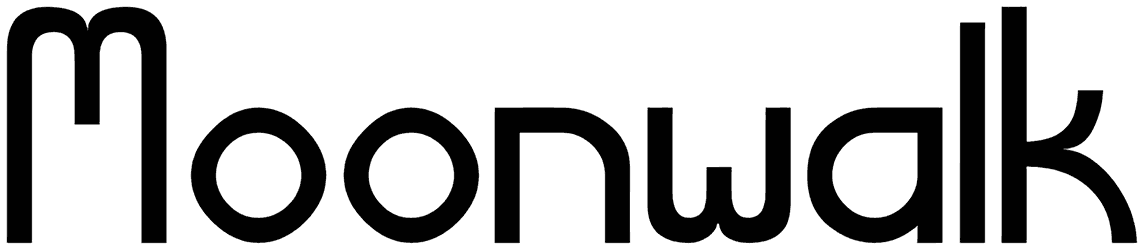
Moonwalk Font
Moonwalk is a digital font with a simple, geometric display. It supports uppercase and lowercase letters, numbers, and some punctuation. It also has good readability. This feature makes it the best option for children’s…
Moonwalk is a digital font with a simple, geometric display. It supports uppercase and lowercase letters, numbers, and some punctuation. It also has good readability. This feature makes it the best option for children’s books. You can use this minimalist font for cartoon titles, social media, product packaging, birthday parties, and logotype designs.